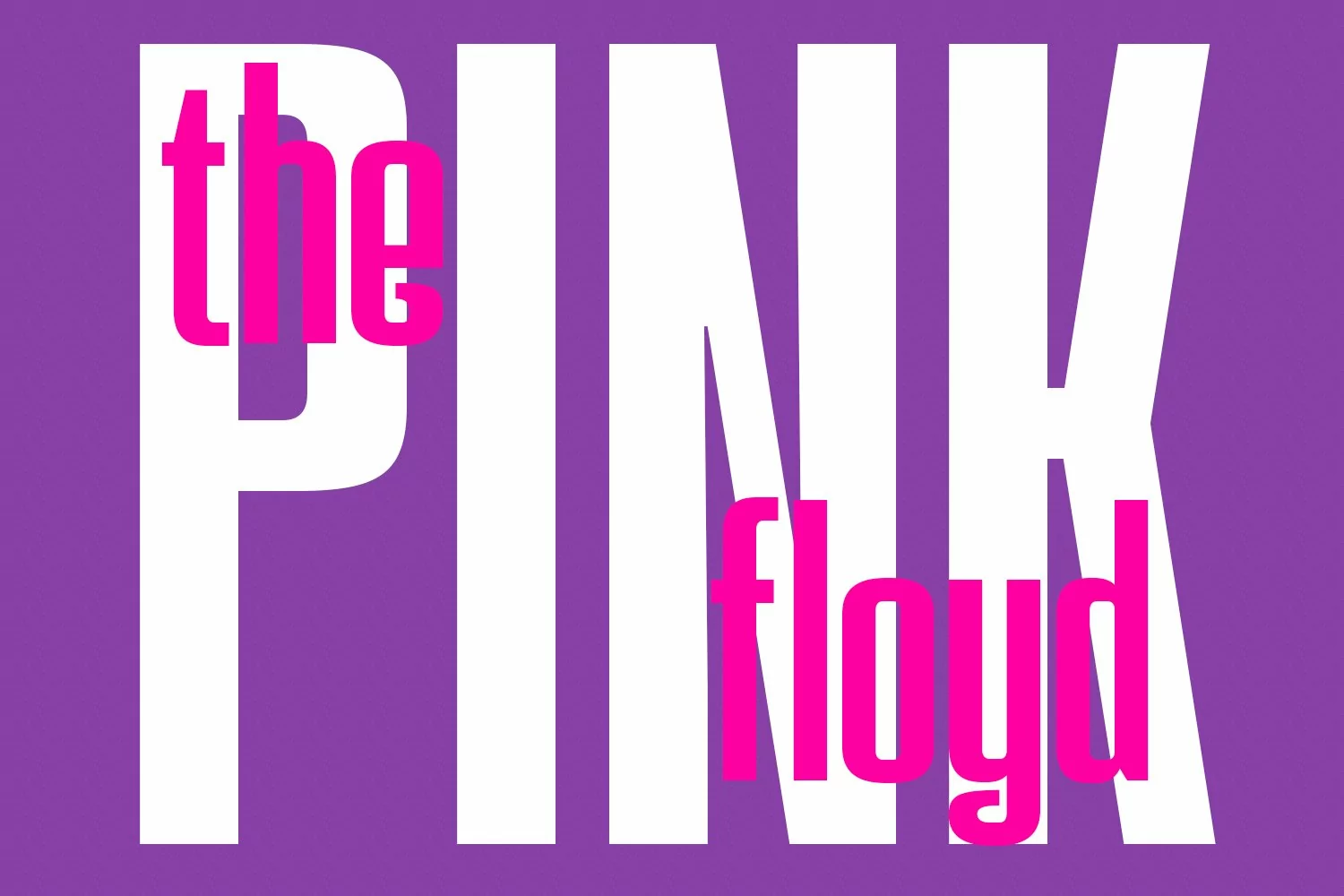
Mynalos is a condensed sans serif font. With bold tall sharp edge stroke, fun character with a bit of ligatures and alternates. To give you an extra creative work. Mynalos font support multilingual more than 100+ language. This font is good for logo design, Social media, Movie Titles, Books Titles, a short text even a long text letter and good for your secondary text font with sans or serif. Make a stunning work with Mynalos font.